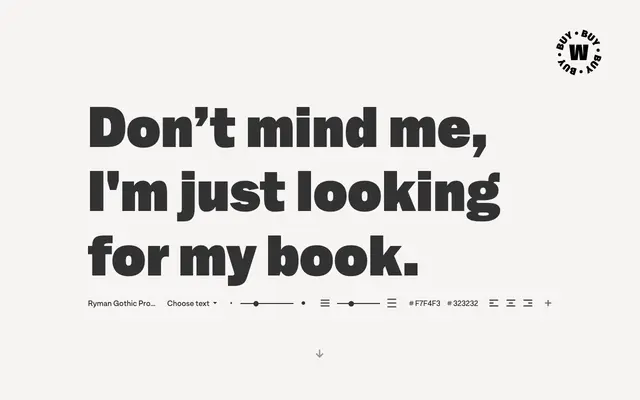
Ryman Gothic
W Type Foundry · Diego Aravena Franco Jonás
A hybrid gothic sans drawn from American wood type and Morris Fuller Benton's gothic tradition, with widened vowels to aid legibility.
Inspired by Edwin Allen and Morris Fuller Benton's American gothic letterforms, Ryman Gothic pairs classic gothic proportions with the higher contrast characteristic of wood type printing. Vowels are deliberately drawn wider than their consonant counterparts, easing readability in longer settings while giving the family a slightly warmer rhythm. The 18-style family spans nine weights from Thin to Heavy, each with a matching italic, and includes extended Latin, Cyrillic and Greek support alongside ligatures and arrow glyphs.
Described explicitly as combining American wood type gothic proportions with the contrast of wood types, placing it firmly in the American gothic sans tradition rather than European grotesque lineage.